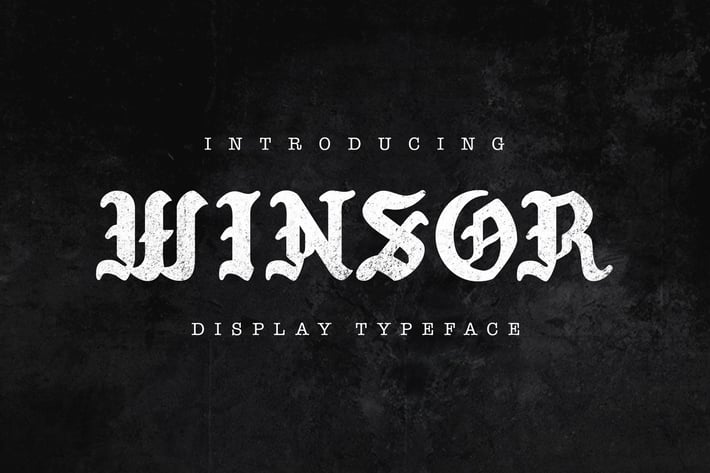
Winsor Typeface
Winsor is a handmade blackletter font with the classy style and strong line. It is suitable for any design needs. Thank you for grab this font in your collections! hope you enjoy with Winsor.